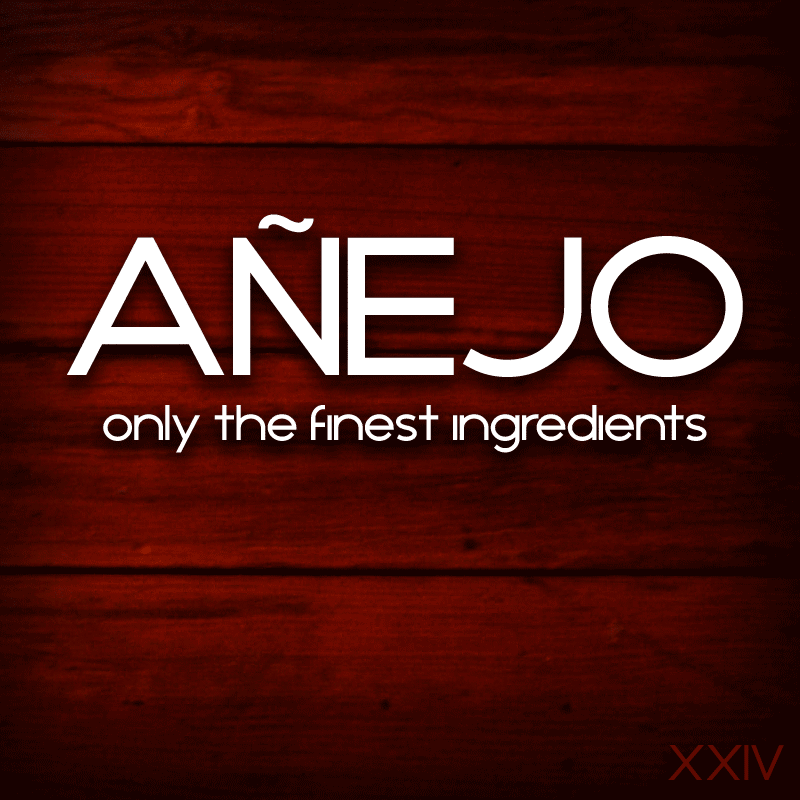
This sans serif font is bold and aged to perfection, in other words, it means business. This font was inspired by fancy liquor ads that I have seen around town in San Salvador. For commercial licensing, please make a donation of any amount to the PayPal account that is available on this page. In the PayPal message area, simply make a note that the donation is for commercial use of this font. Enjoy! ----------------------- Check out my new Font Blog to stay up to see when I release new fonts! http://murafonts.blogspot.com/ ----------------------- This is free for personal use. Please do not sell, redistribute, or claim ownership of this font. Please DO NOT download this font and redistribute it on another website!!! If you make use of this font, it might be cool if you either credit MuraKnockout Media or Michael Muranaka, or show me how you used it! Enjoy! |